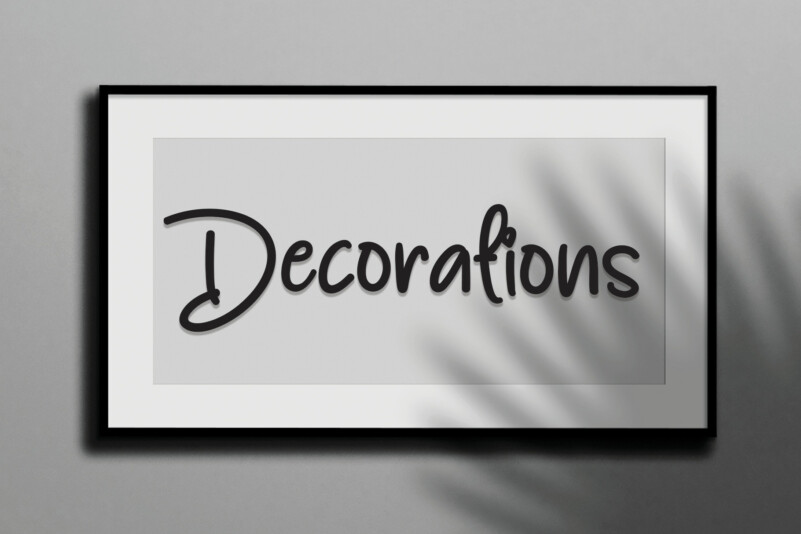
Handmade Script Font
Handmade Script Font is a beautiful handwritten font perfect for wall displays, wedding invitations, social media post logos, advertisements, product packaging, product designs, labels, photography, watermarks, invitations, stationery, and any project that requires handwritten taste